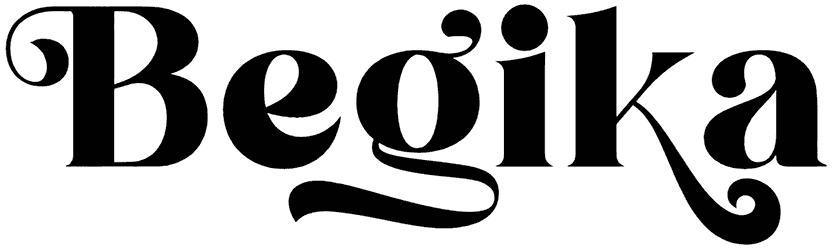
Begika Font
Other than a distinctive luxury style, Begika leans on its smooth serif end body to achieve a unique result. The classy lettering, followed by four different styles, makes this serif font something you don’t want to miss.
Headlines, official illustration books, and comics count as only a few departments where Begika can treat great. But the list goes on further for this A-Z luxury font. Who wouldn’t appreciate a combination of traditional, along with just a tinge of alarming vibes?